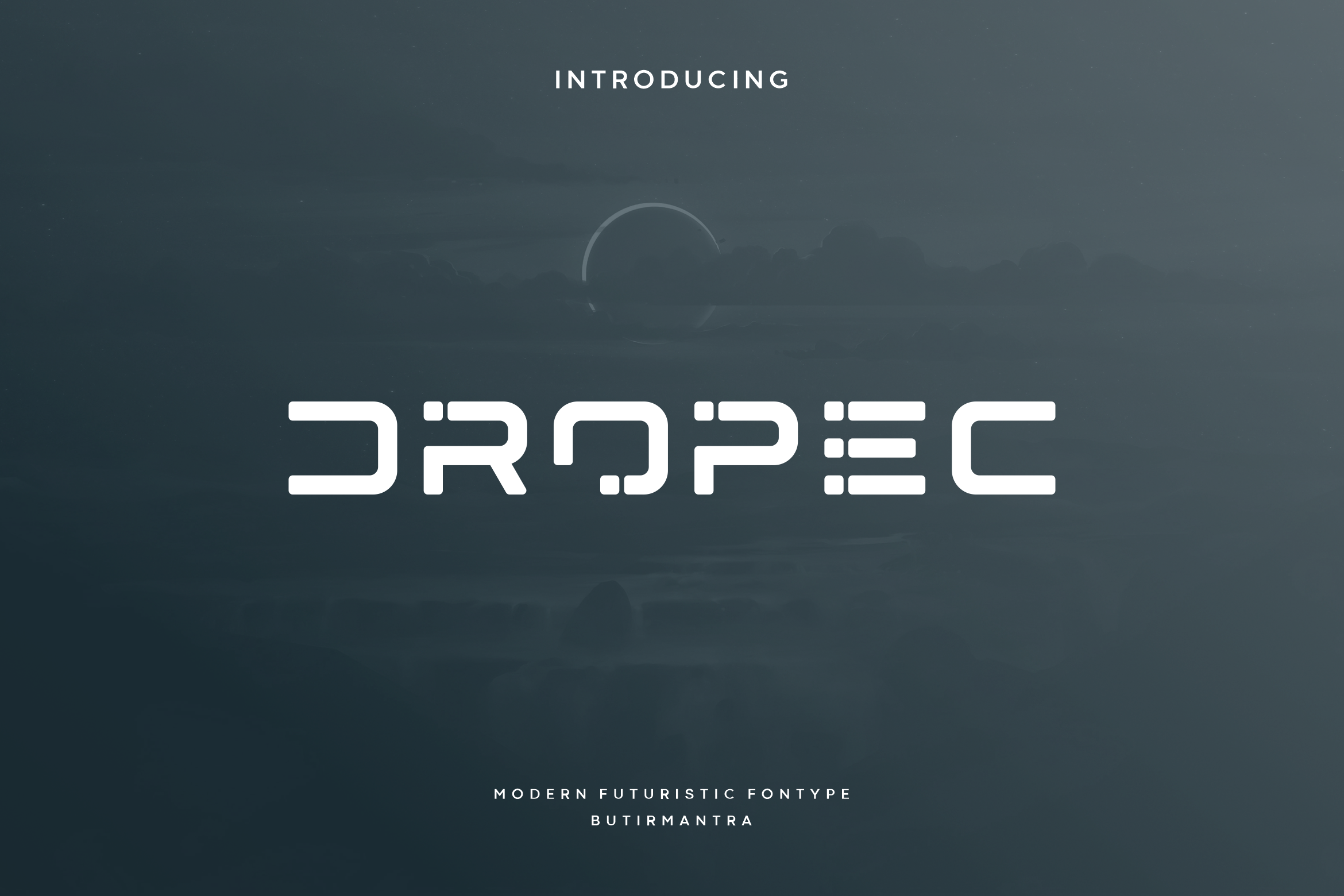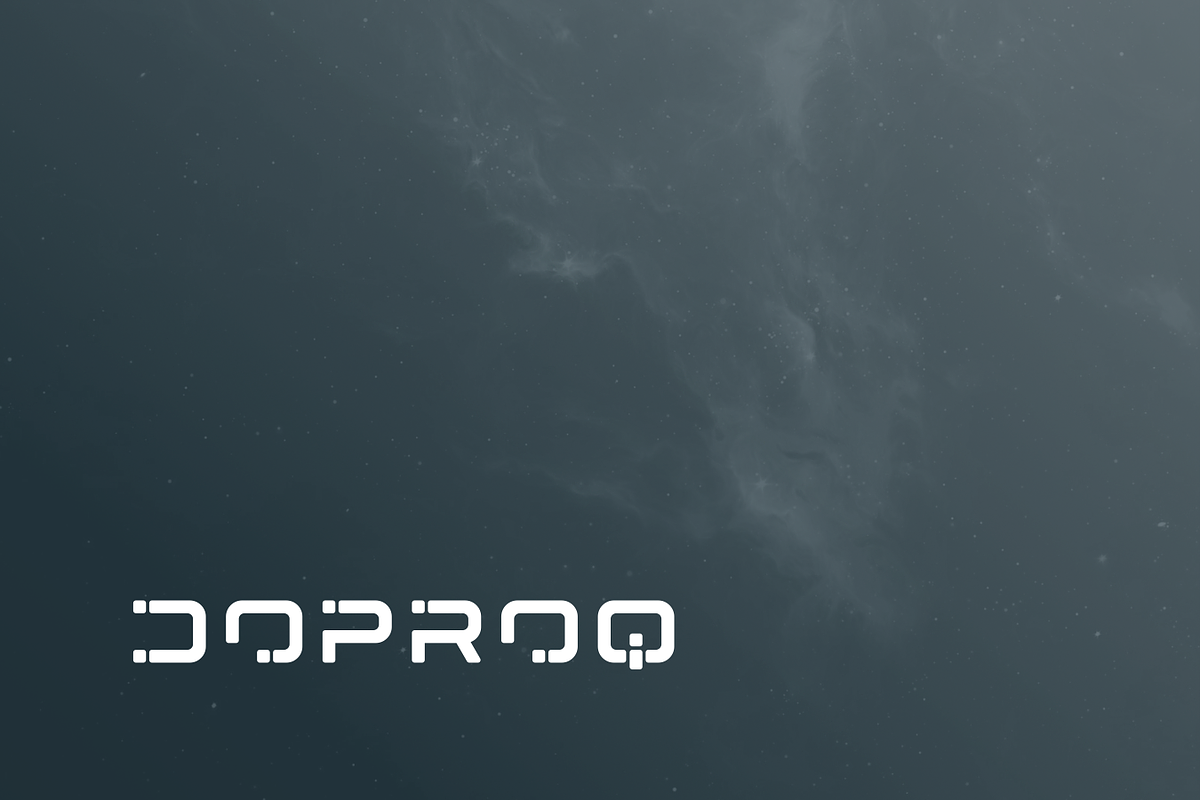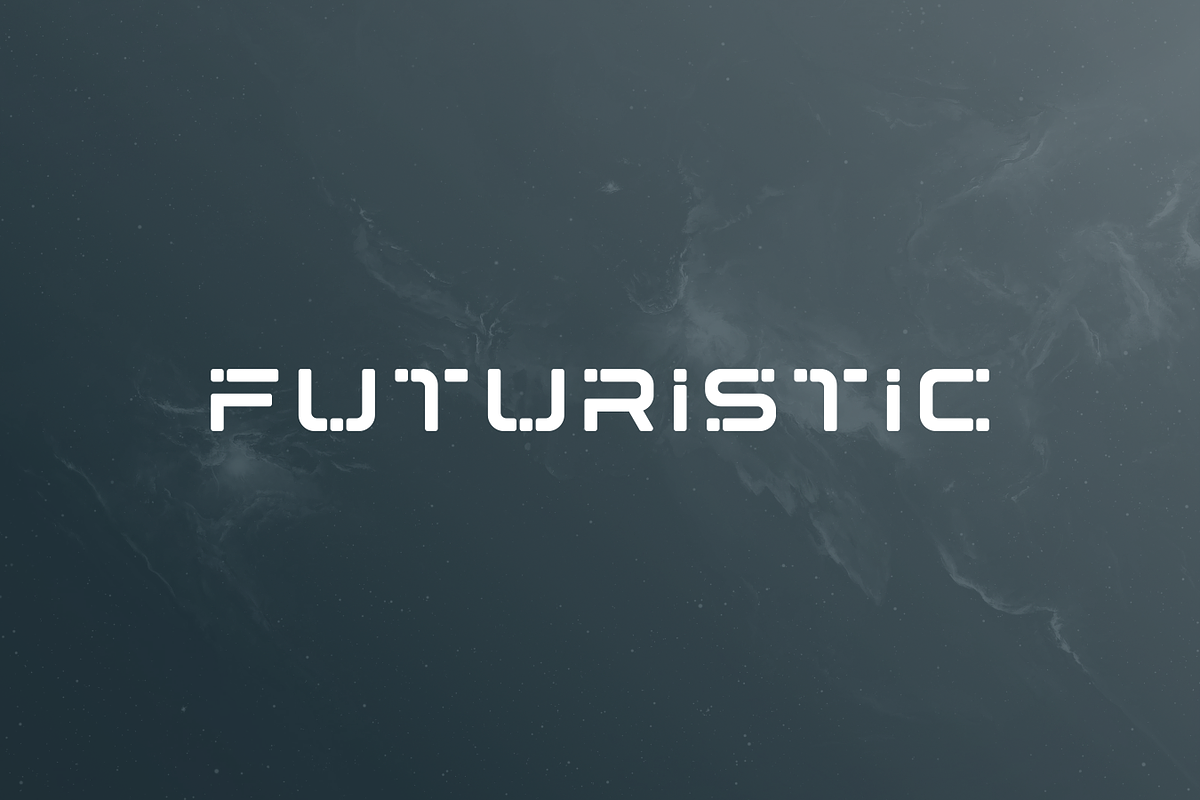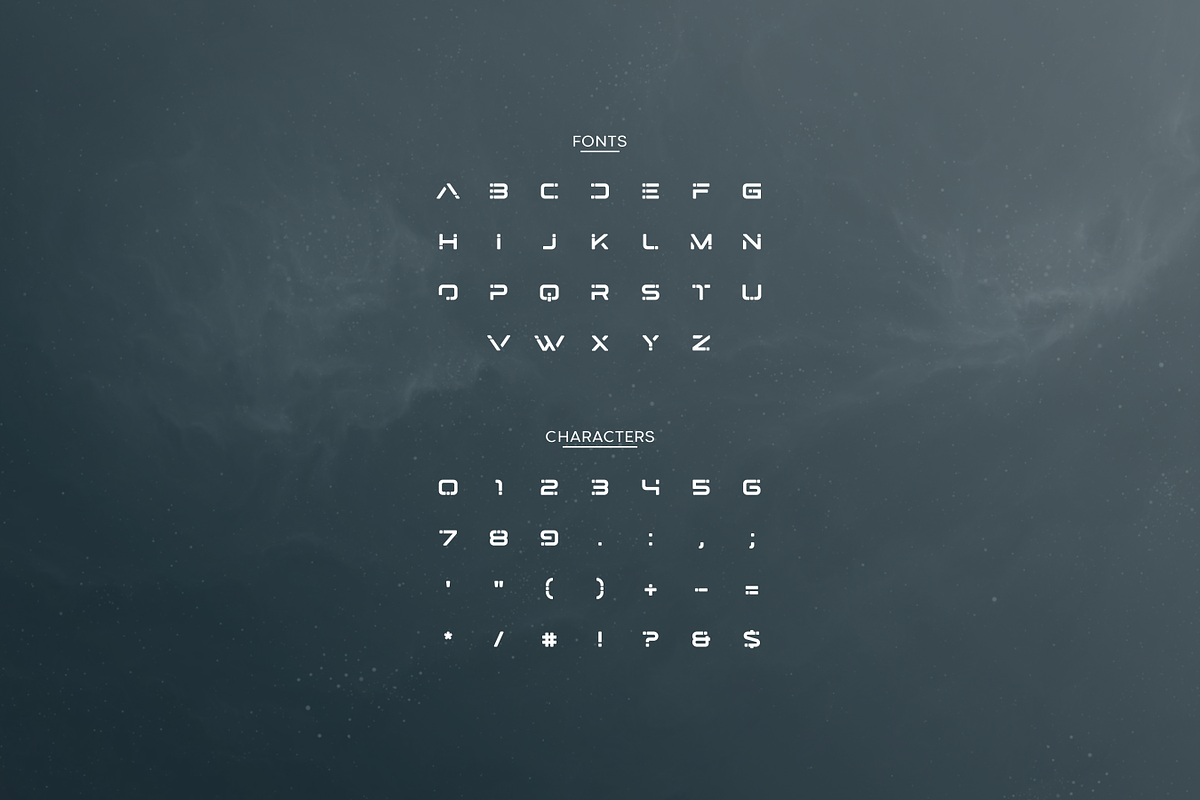
Dropec - Futuristic Typeface
Dropec is a modern, elegant and futuristic look font. This font would be ideal for writing web designs, business cards, or just about anything else that requires a unique touch. With a sophisticated concept and very elegant shape that will look modern on future technology designs.